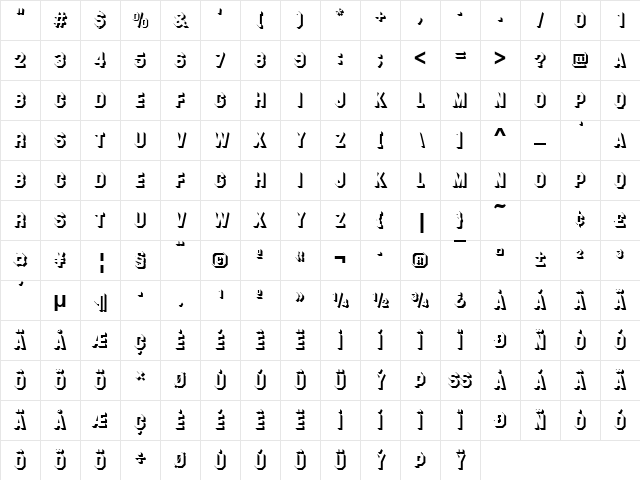
SuperstarShaD Regular Free Font
SuperstarShaD Regular
Design Context for SuperstarShaD
SuperstarShaD is a composed and adaptable typeface that performs quietly and consistently across a wide range of design contexts.